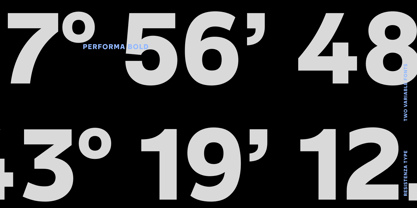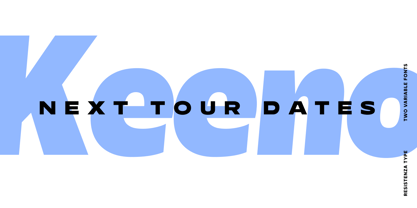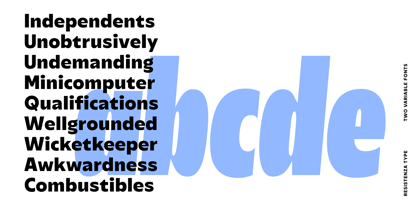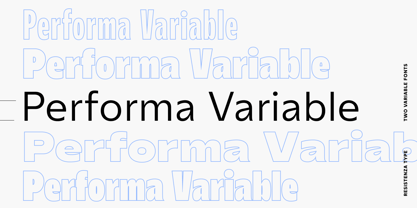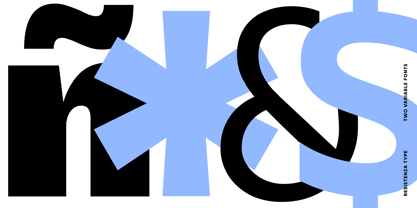
Performa Variable
by Resistenza
The Performa Variable Font Family was designed by Giuseppe Salerno, Paco González and published by Resistenza. Performa Variable contains 2 styles and family package options.
Meet Performa, a versatile variable font that seamlessly blends geometric structure with grotesque warmth. With two finely tuned axes—Weight and Width—plus an expressive Italic companion, Performa offers a dynamic typographic system in a single, flexible file.
From ultra-light, condensed styles to bold, extended widths, Performa adapts effortlessly to a wide range of creative and professional applications. Whether you're designing sleek interfaces, editorial layouts, or bold brand identities, Performa delivers consistent style and responsive performance.
Crafted for clarity and balance, Performa features open counterforms and smooth letter shapes for optimal readability. Subtle angular details introduce energy and personality, while its variable design ensures smooth transitions between styles—making it as functional as it is expressive.
Optimized for digital and print alike, Performa’s responsive flexibility and polished aesthetic make it ideal for editorial design, web typography, packaging, signage, and beyond. Wherever typography demands both adaptability and character, Performa is ready to perform.